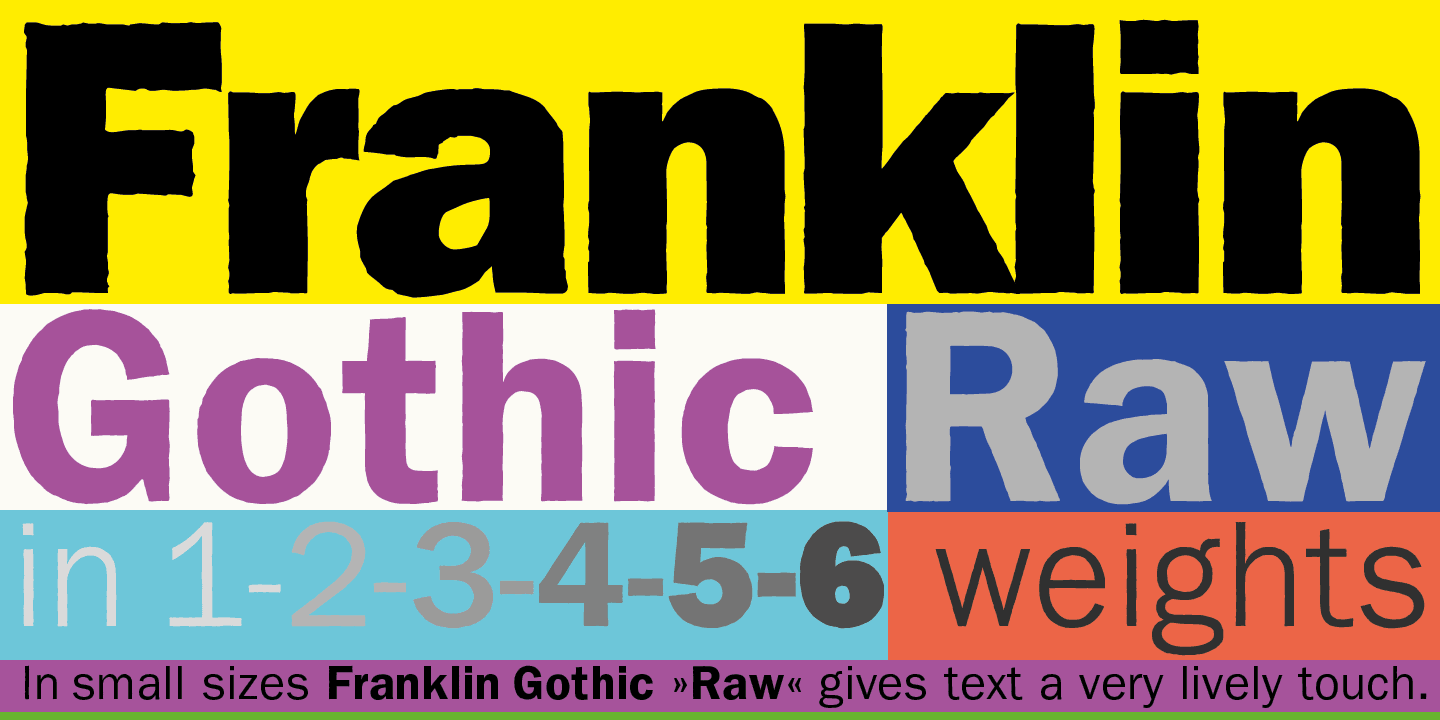
Franklin Gothic Raw is a sans serif font family. This typeface has nine styles and was published by Wiescher-Design.
When drawing a new font, there is a time when the final form is found – almost – but the curves are not slick and clean yet, that’s what I call the »raw« form. Raw – no sweeteners added! In this family I tried to redefine this moment in type development for the eternally beautiful »Franklin Gothic«.
I call the design »Franklin Gothic Raw«, not to be confounded with »rough«. The family can be used like any good normal typeface, you hardly see any difference to a conventionally cut »Franklin Gothic« in small sizes. The charm of the design becomes obvious the bigger it becomes, then it enhances your design with its imperfections in the outline.
»Franklin Gothic Raw« is therefore an extremely versatile family. I created the cuts, that I considered necessary for the seasoned designer who knows what he’s doing. Enjoy!